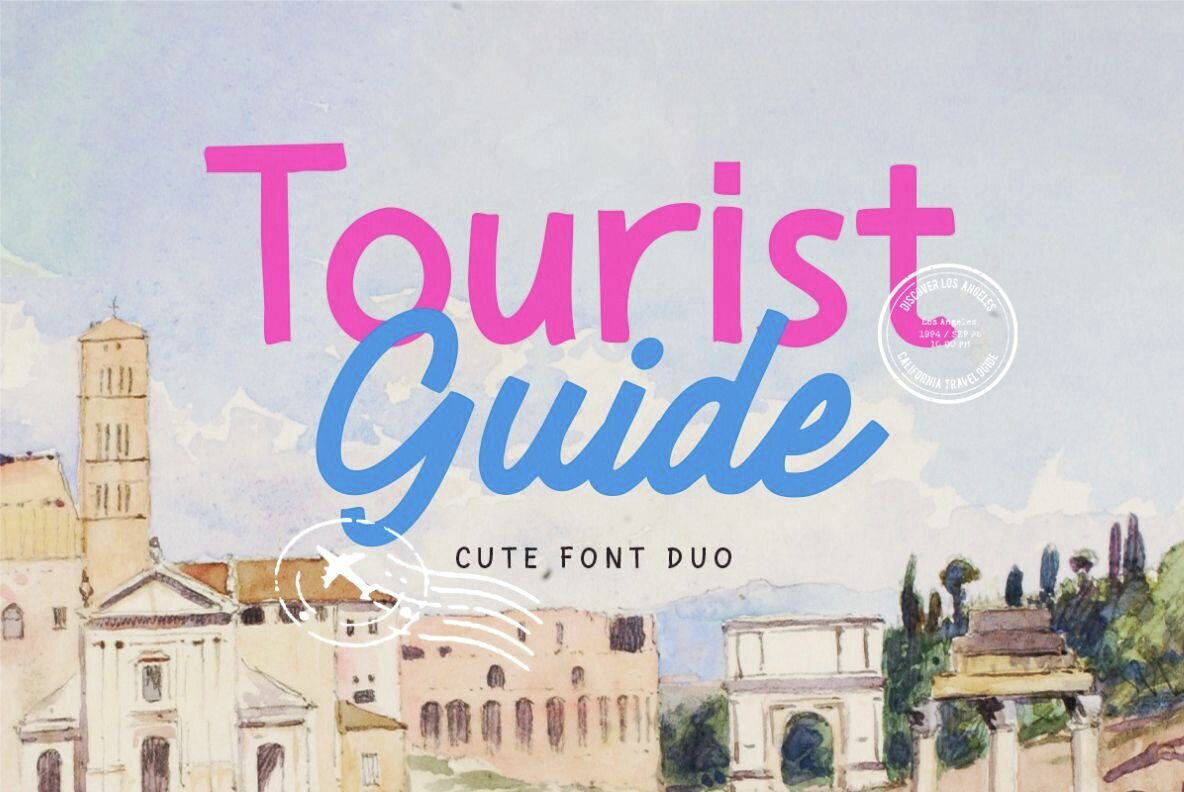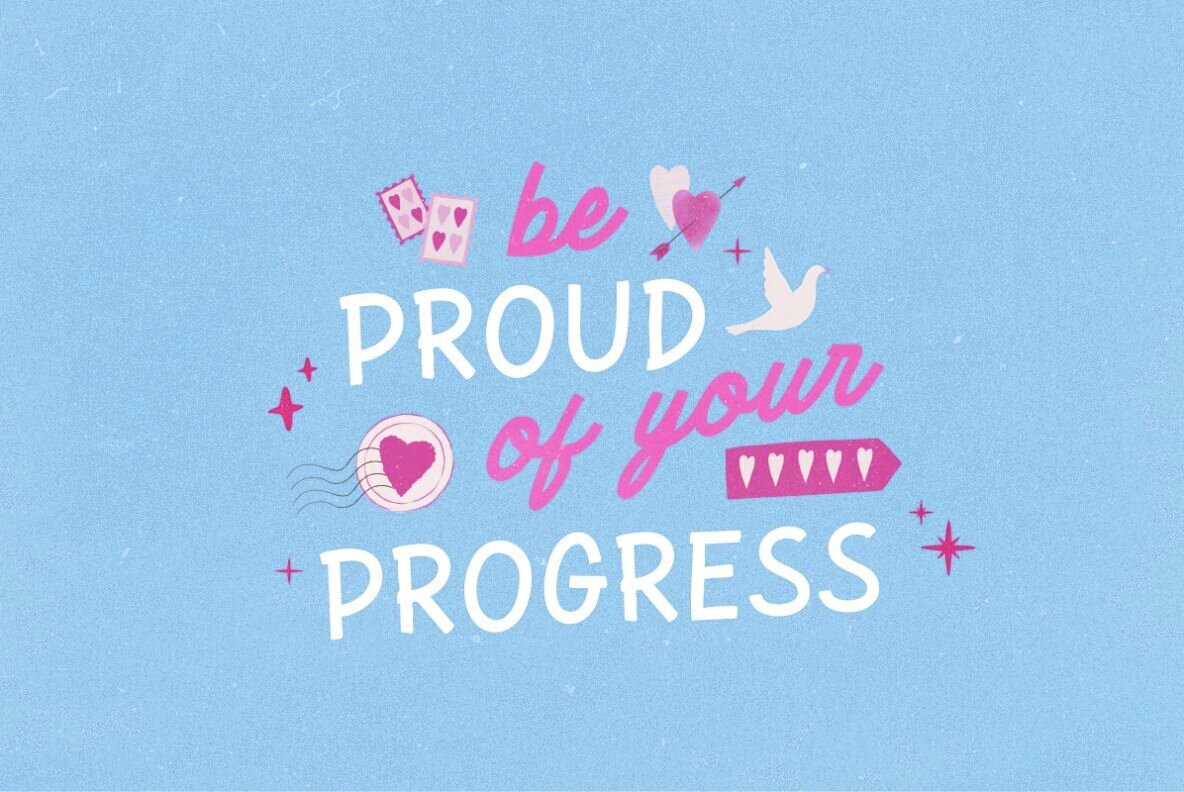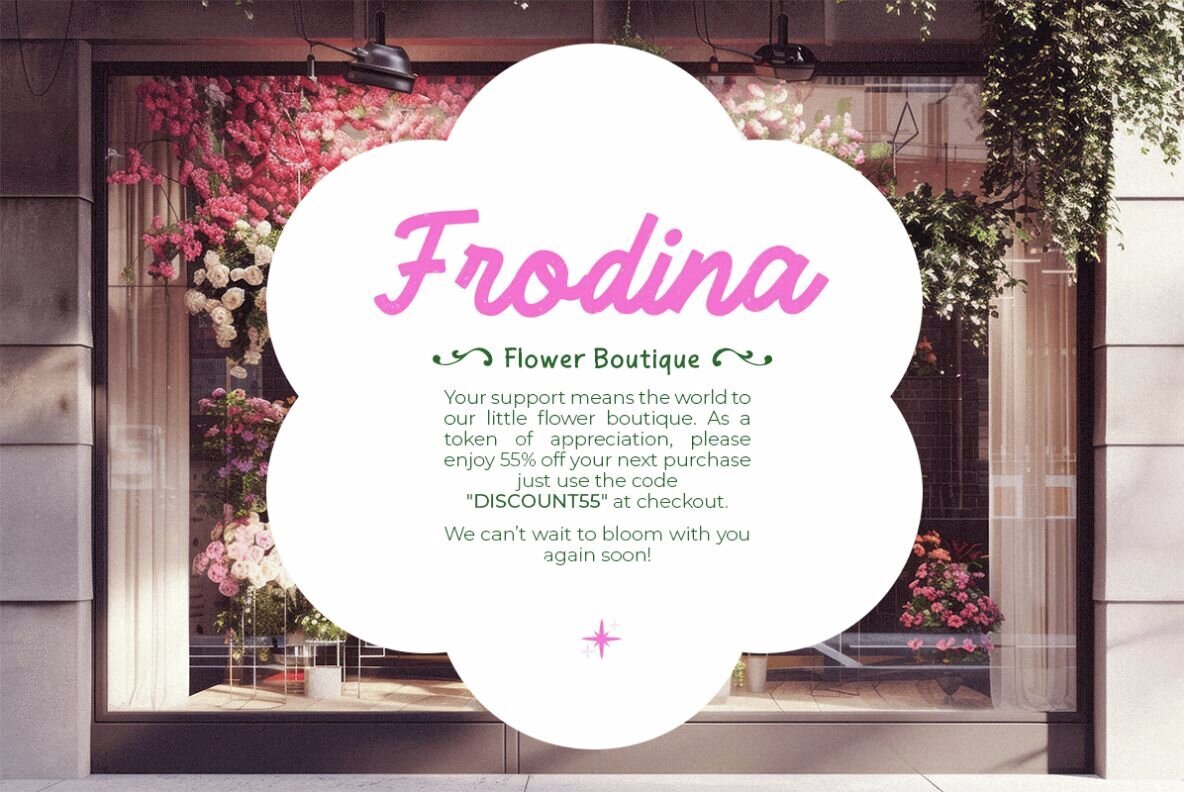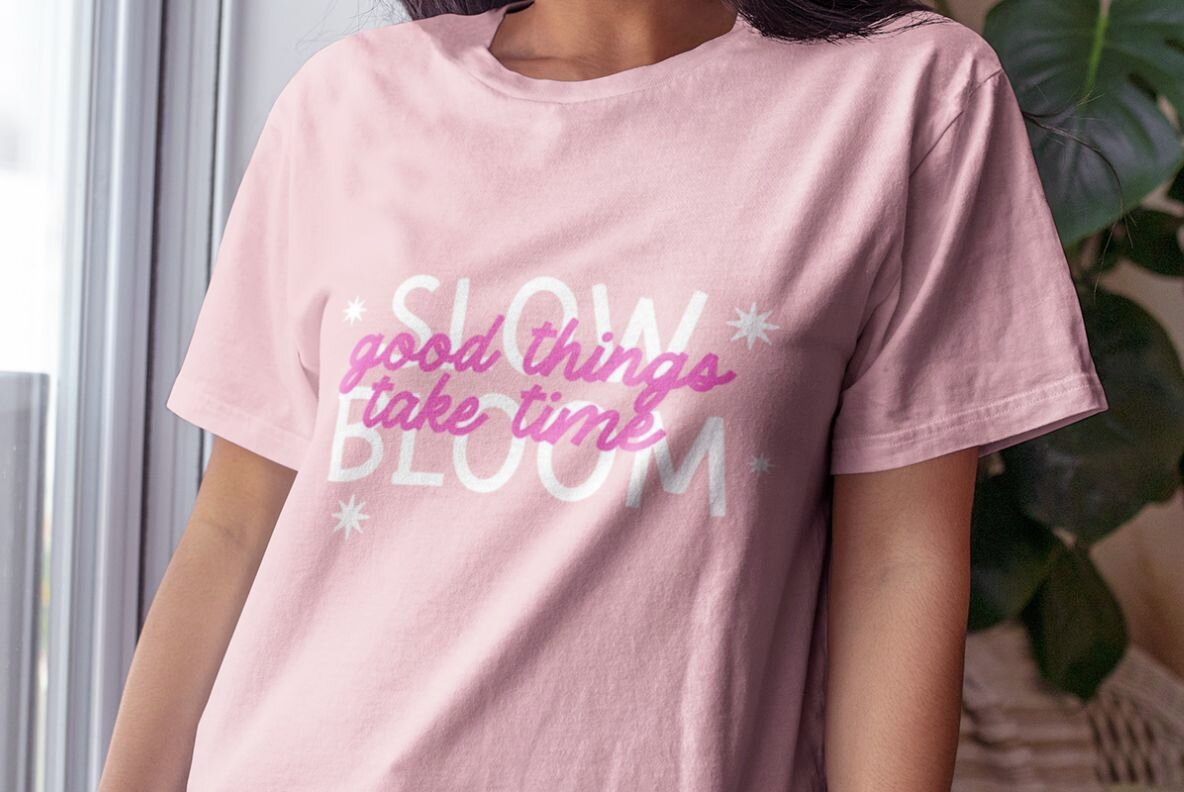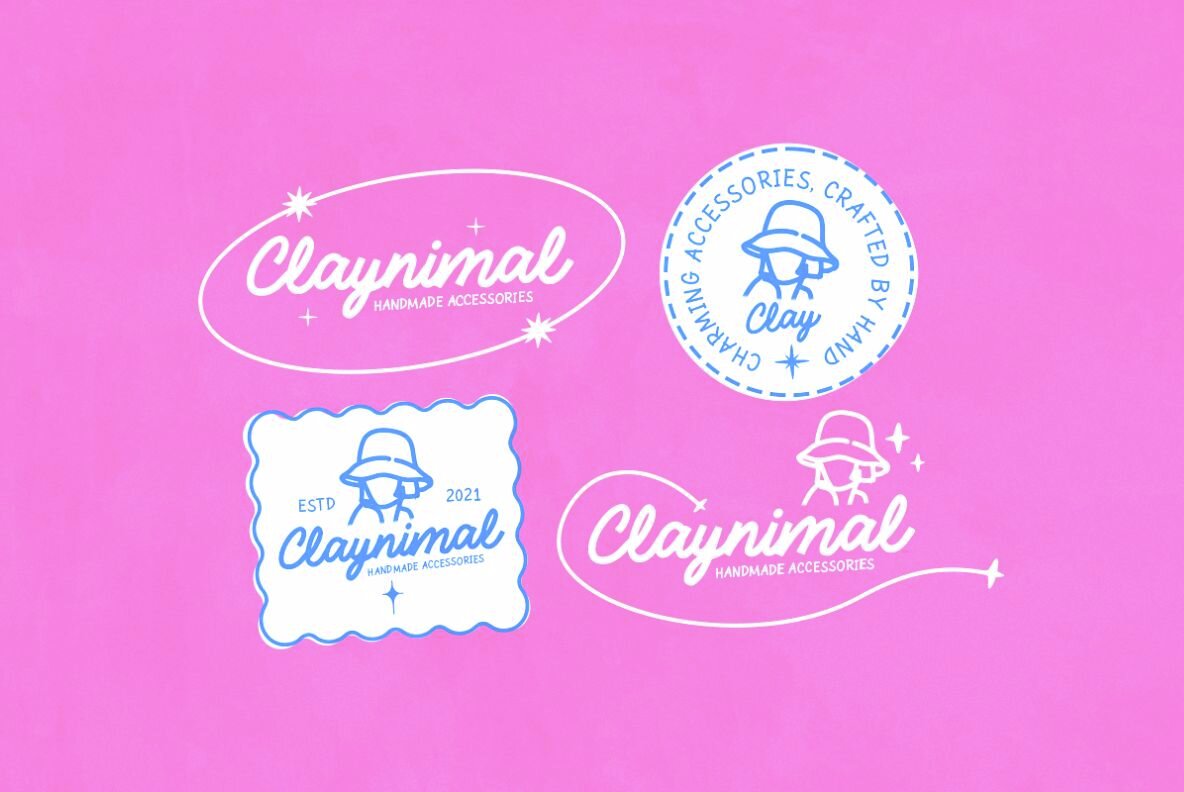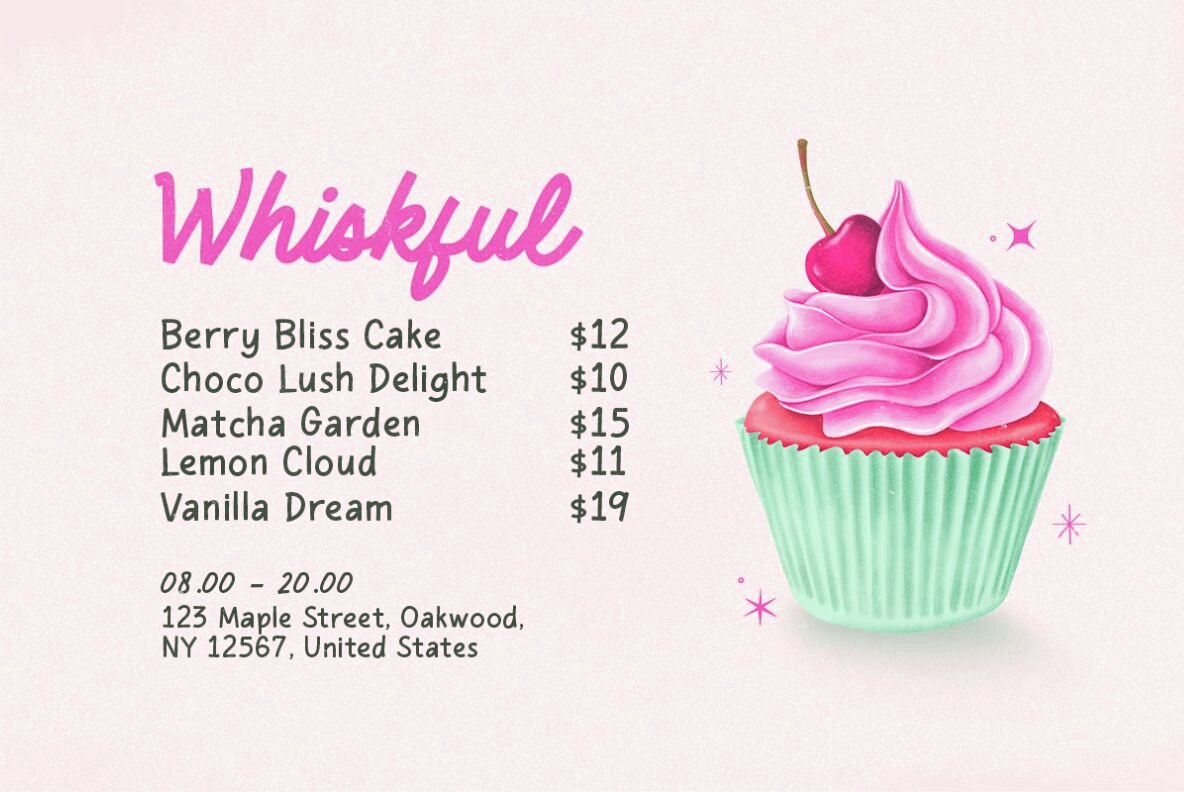
Tourist Guide Font
Tourist Guide Sans
Tourist Guide Script
Tourist Guide combines a charming monoline sans with an elegant script to create a delightful hand-lettered appeal. Perfect for projects that evoke a sense of playful celebration, this versatile duo is well-suited for designs ranging from posters to book covers, logos, branding, and quotes. The fonts seamlessly adapt to styles that require a hint of cuteness or capture the essence of holiday escapades.Tourist Guide: Playful Sans and Script Duo